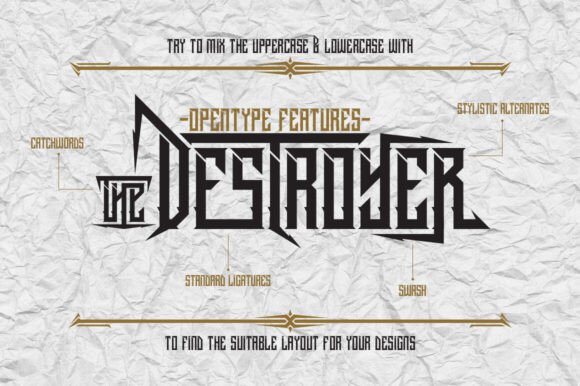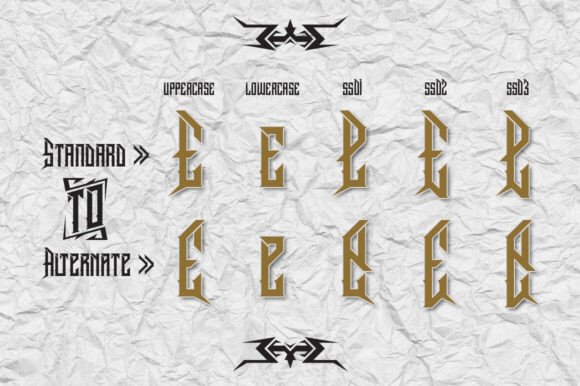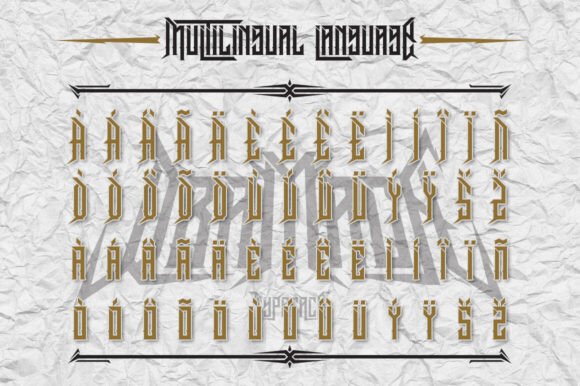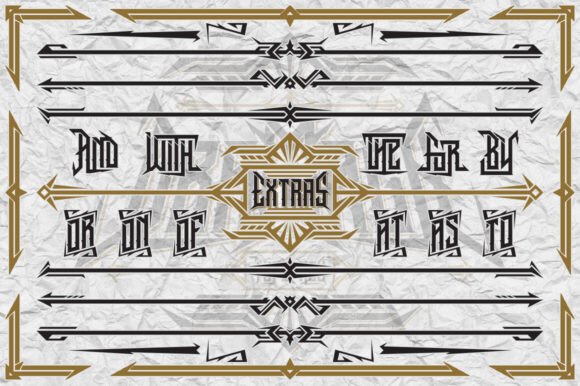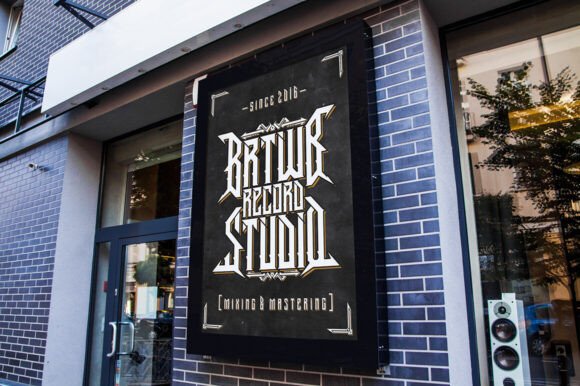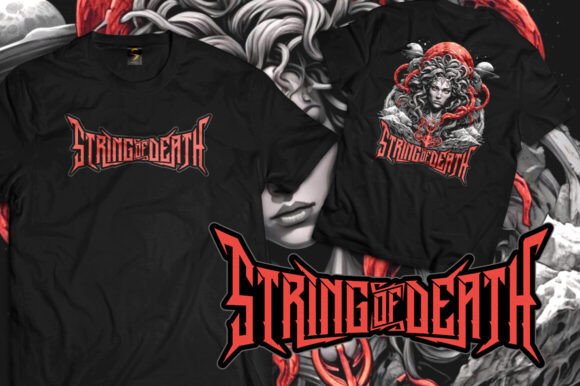
The Dramaga Font: Unlocking Electrifying Literary Aesthetics
I’ll never forget the late nights spent working on a Posthardcore-inspired design project, struggling to find the perfect font that captured the essence of the culture. My client was adamant about creating a visually stunning masterpiece that would resonate with their audience. That’s when I stumbled upon the Dramaga font – a game-changer that infused my design with the electrifying spirit of Posthardcore. In this article, I’ll share my experience with Dramaga, its features, and how to make the most of this incredible font.
A Personal Review: What I Love and What to Watch Out For
- 💥 **Unique blend of uppercase and lowercase letters**: Dramaga’s thoughtful design combines bold and delicate elements, creating a captivating visual experience.
- 🎨 **Standard ligatures and swashes**: Add a touch of elegance and sophistication to your design with these beautiful typographic elements.
- 📚 **Perfect for Posthardcore and creative projects**: Dramaga’s infusion with Posthardcore culture makes it an excellent choice for designs that require a bold, edgy aesthetic.
- 👍 **Highly legible**: Despite its bold design, Dramaga remains easy to read, making it suitable for body text and headlines.
Small Quirks and Limitations ⚠️
- 🤔 **Limited use in formal or traditional designs**: Dramaga’s bold, edgy personality might not be suitable for more conservative or traditional design projects.
- ⚠️ **Requires careful kerning**: As with any font, pay attention to kerning to ensure optimal readability and aesthetics.
The Designer Inspiration Behind Dramaga
According to its creators, Dramaga was inspired by the raw energy and rebellious spirit of Posthardcore culture. The font’s design is a thoughtful blend of bold and delicate elements, reflecting the genre’s dynamic and emotive qualities. While the actual design process remains a mystery, it’s clear that the creators aimed to craft a font that would resonate with creatives and designers seeking a unique aesthetic.
| Font Name | Dramaga Font |
| Author | HengzArt_Studio |
| What type of projects is Dramaga best suited for? | Dramaga excels in creative projects, Posthardcore-inspired designs, and bold editorial projects. |
| Is Dramaga suitable for body text? | While Dramaga is legible, its bold design makes it more suitable for headlines and titles. |